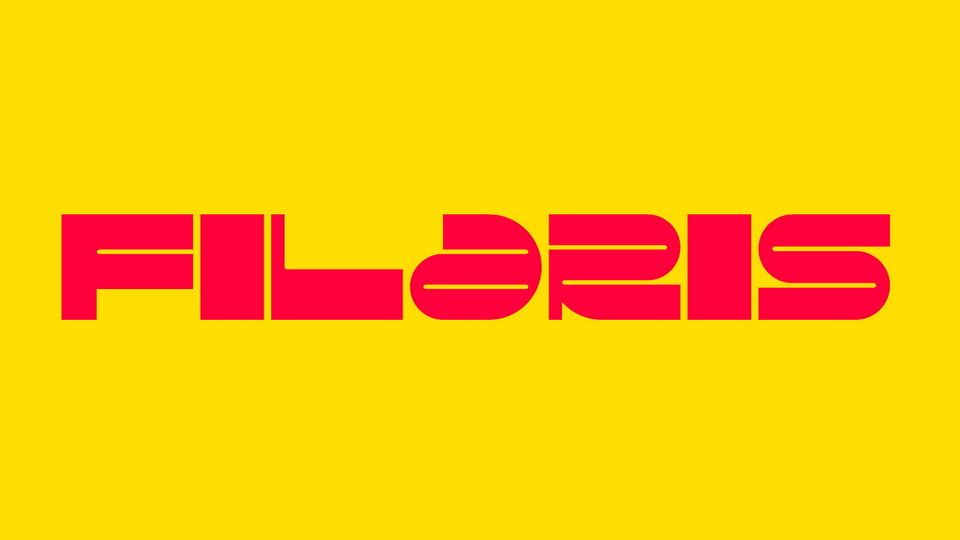
Download Filaris font, a high-contrast, reversed stress style display typeface. The bold shape of Filaris font with the rhythmic contrast of the characters creates a unique pattern in the text line.